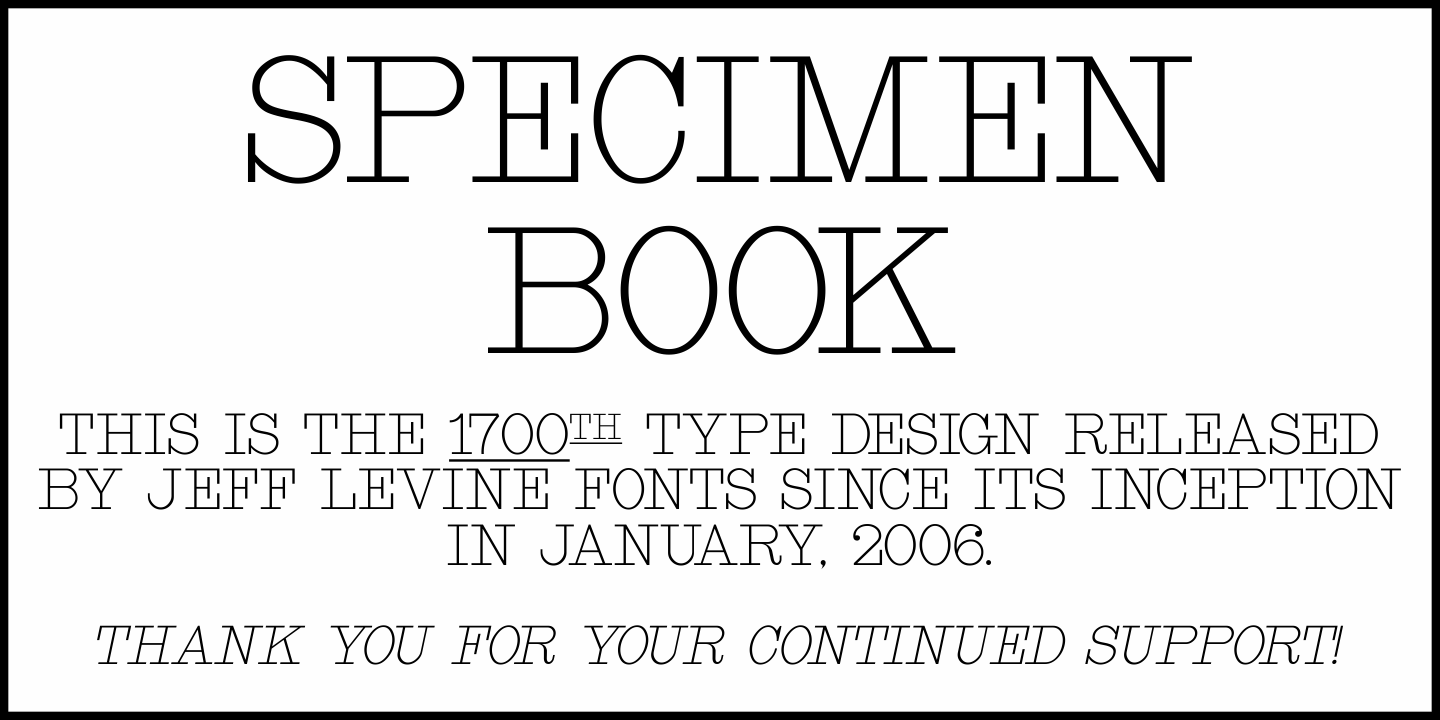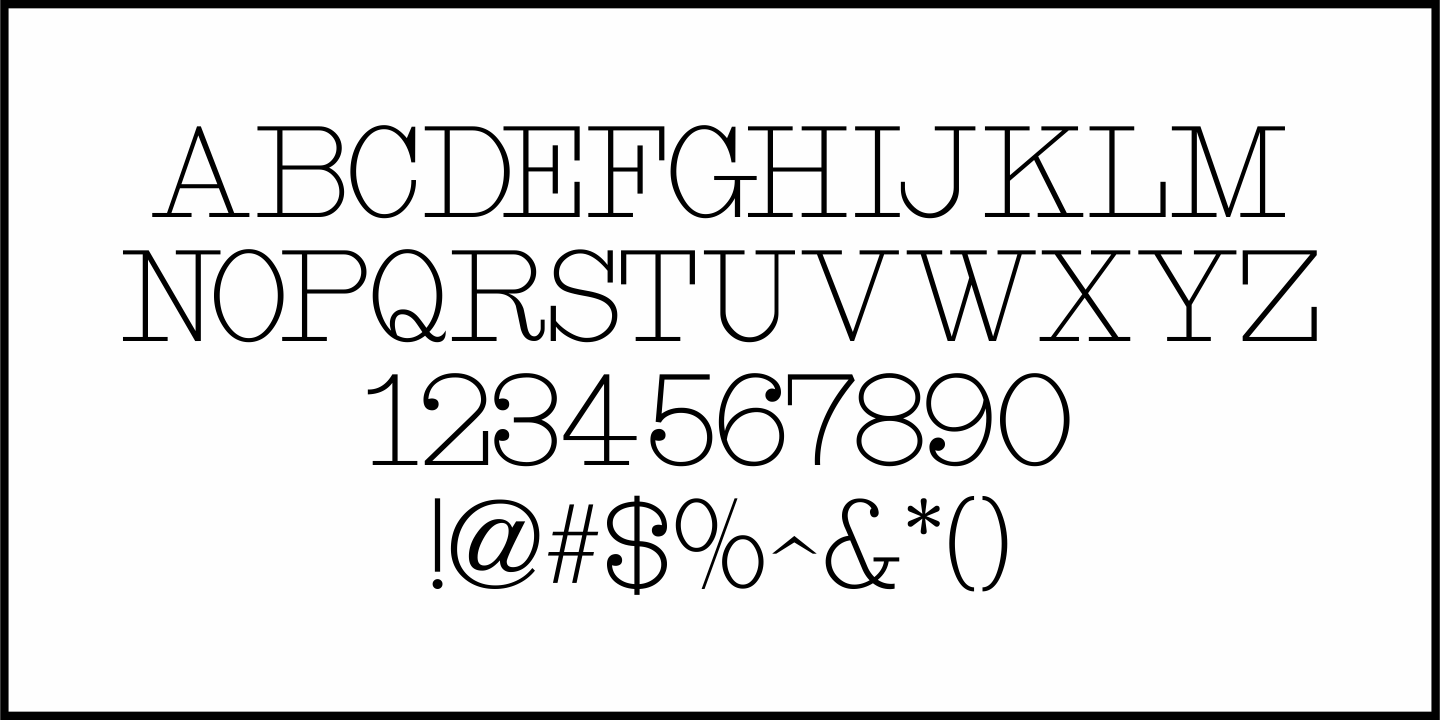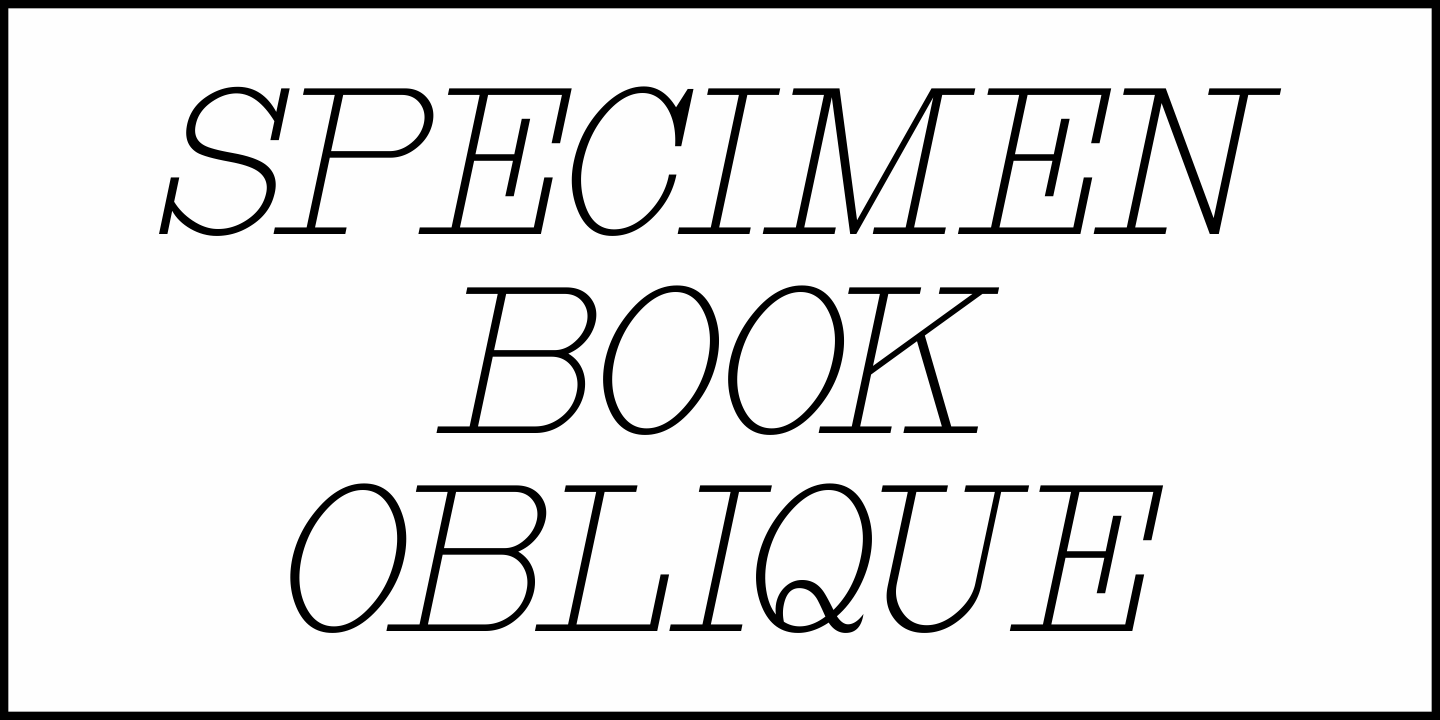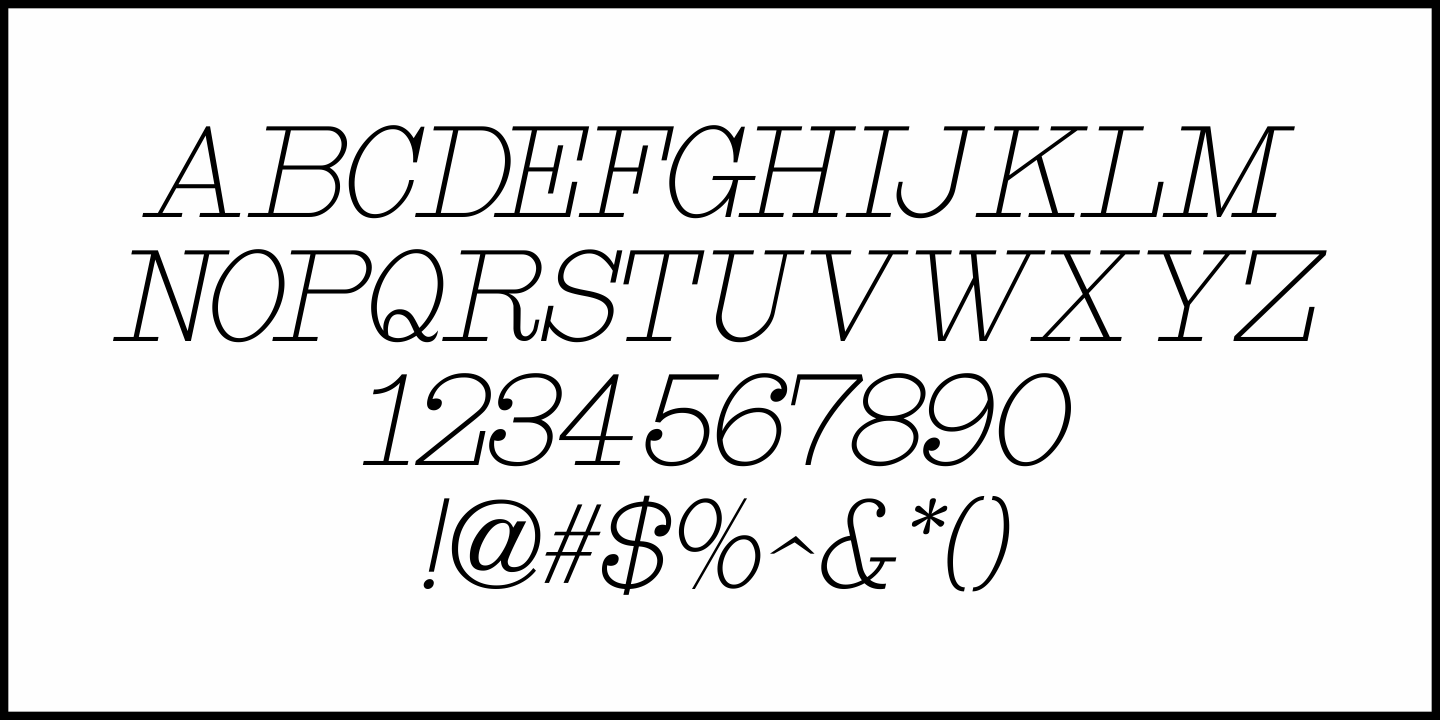
Specimen Book
A thin Roman typeface with slab serifs shown in various editions of the American Type Founders’ Specimen Book as either Lining Antique or Lining Central Antique was the model for Specimen Book JNL which is available in both regular and oblique versions.
This is the 1700th design released by Jeff Levine Fonts since its inception in January, 2006 and was named Specimen Book JNL to celebrate the era when metal type and letterpress were the modern technology of their time.
Specimen Book JNL Regular by Jeff Levine Fonts